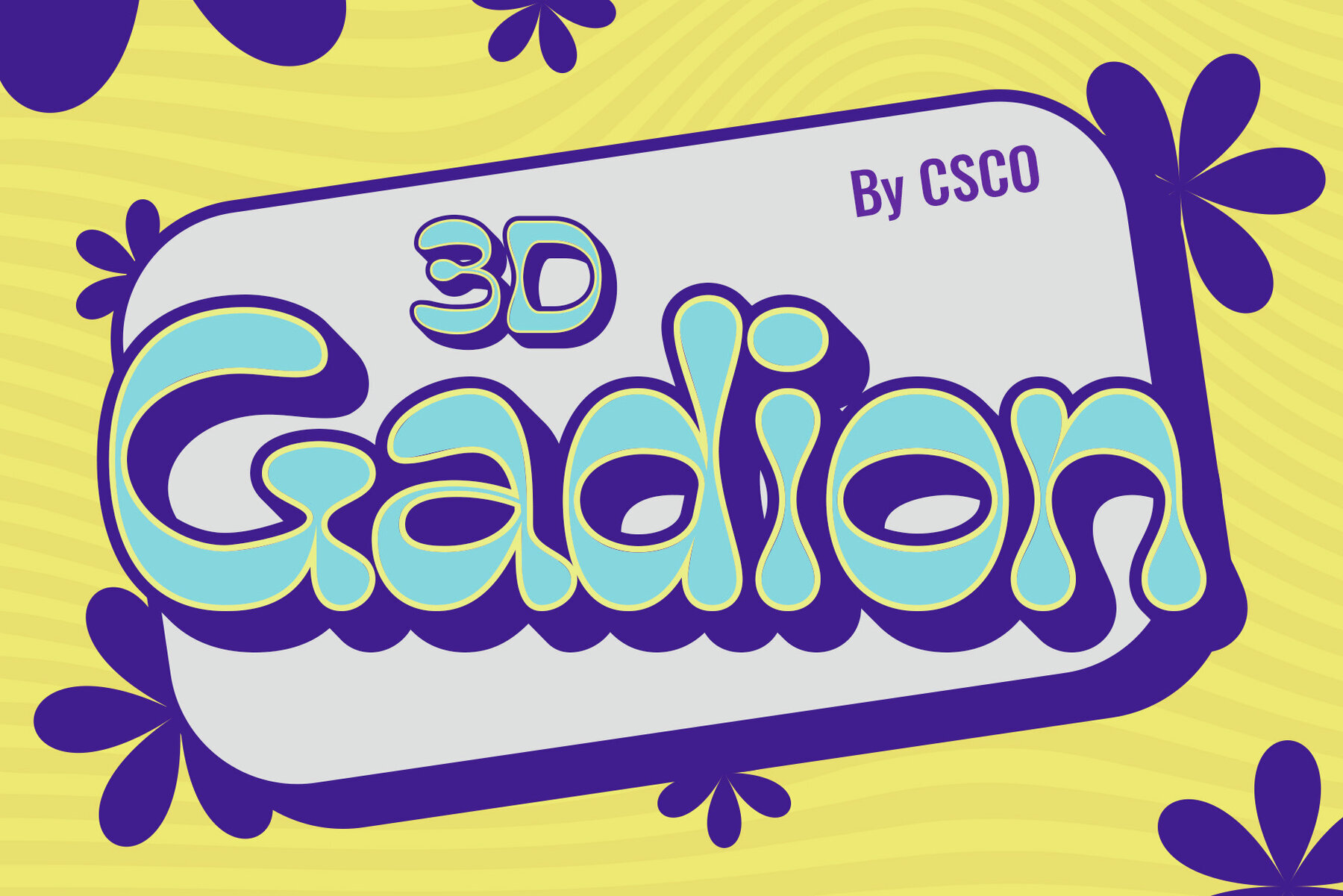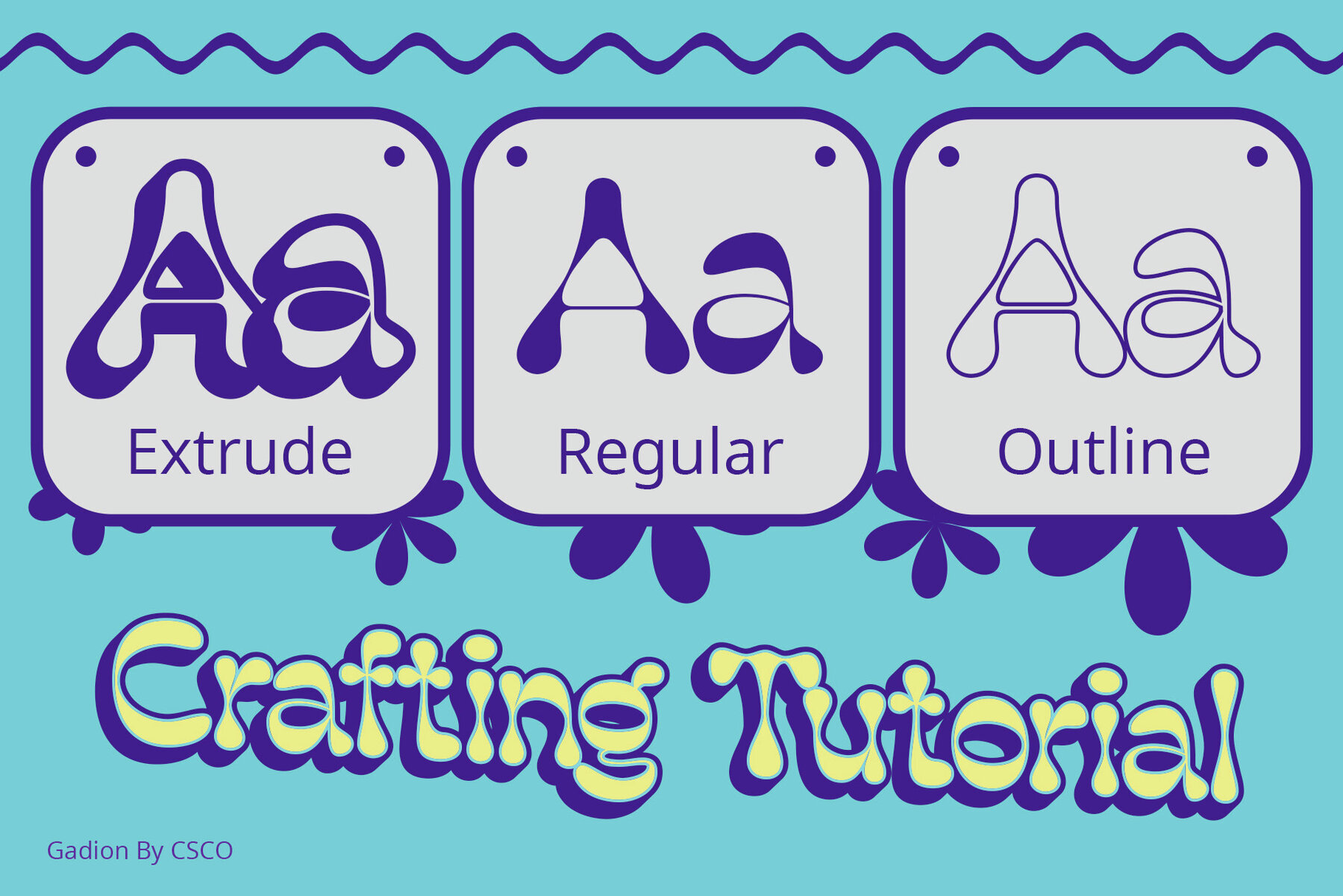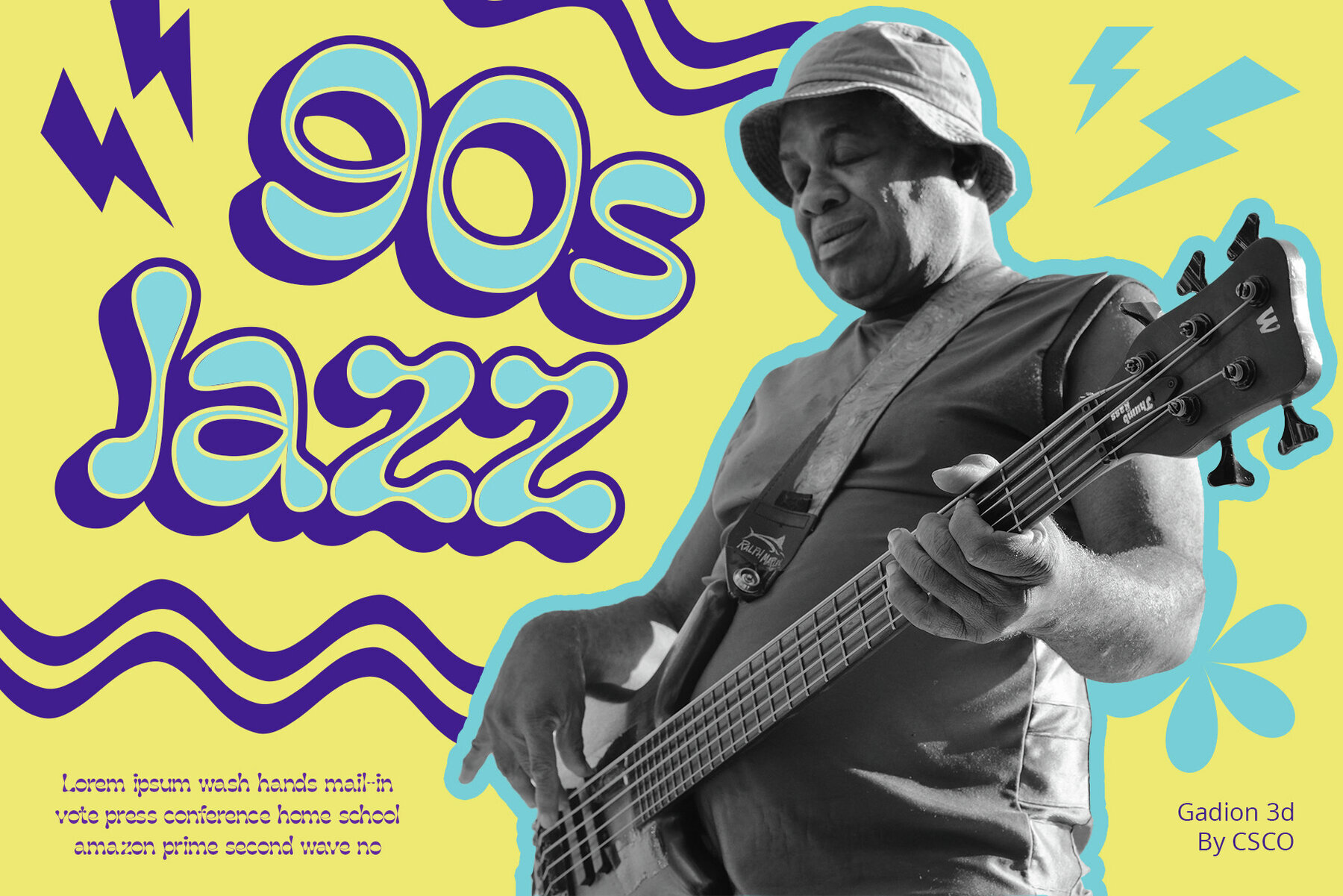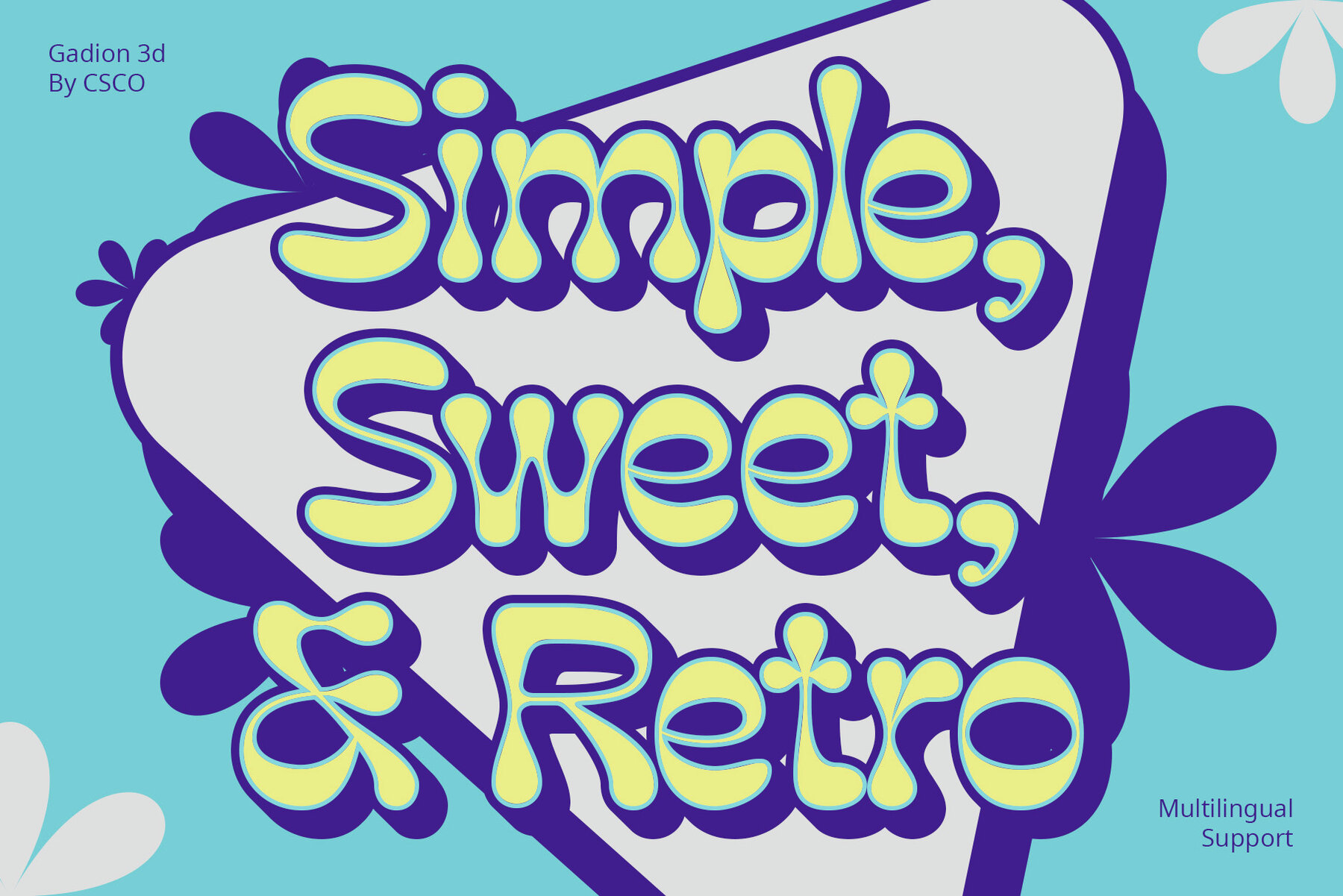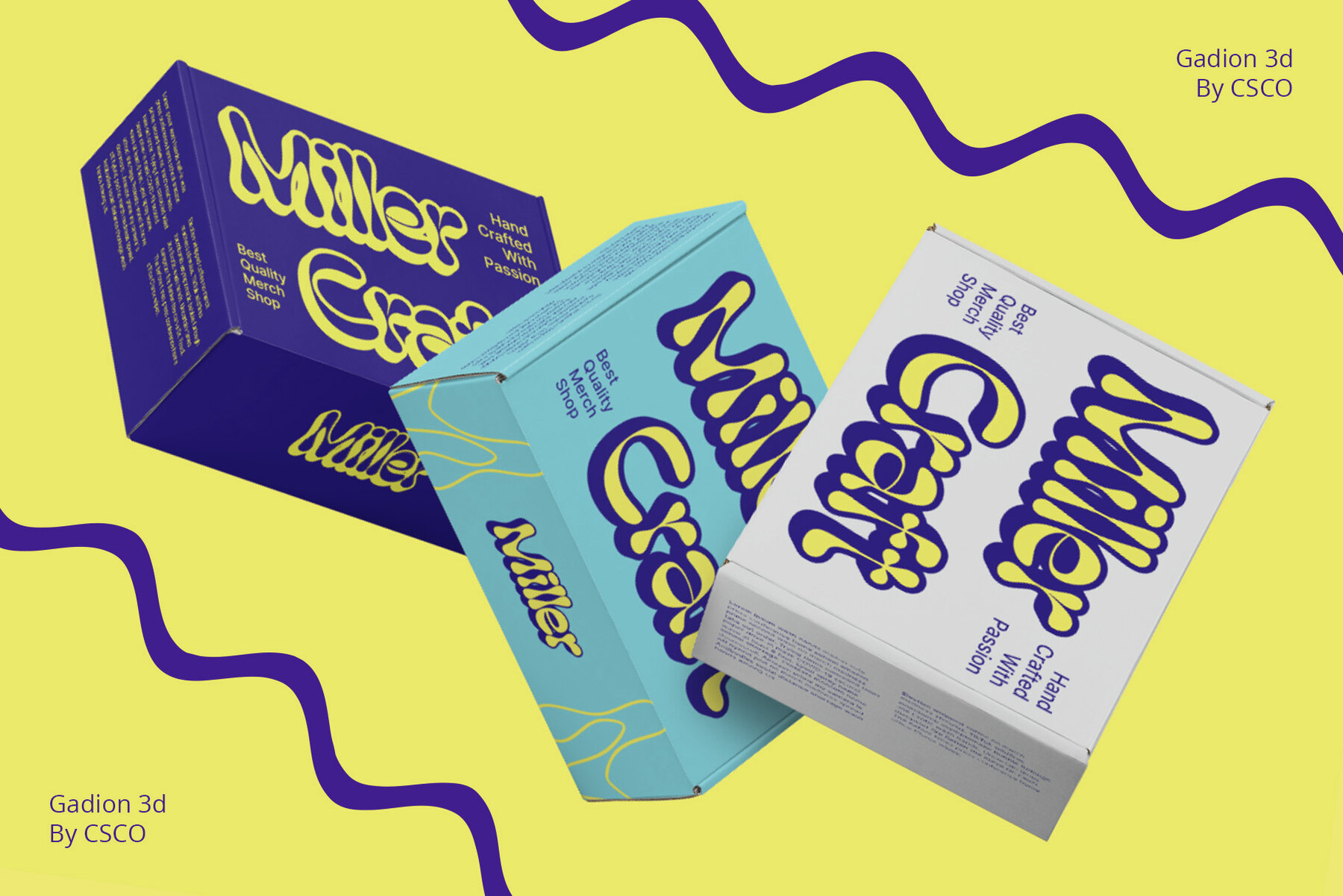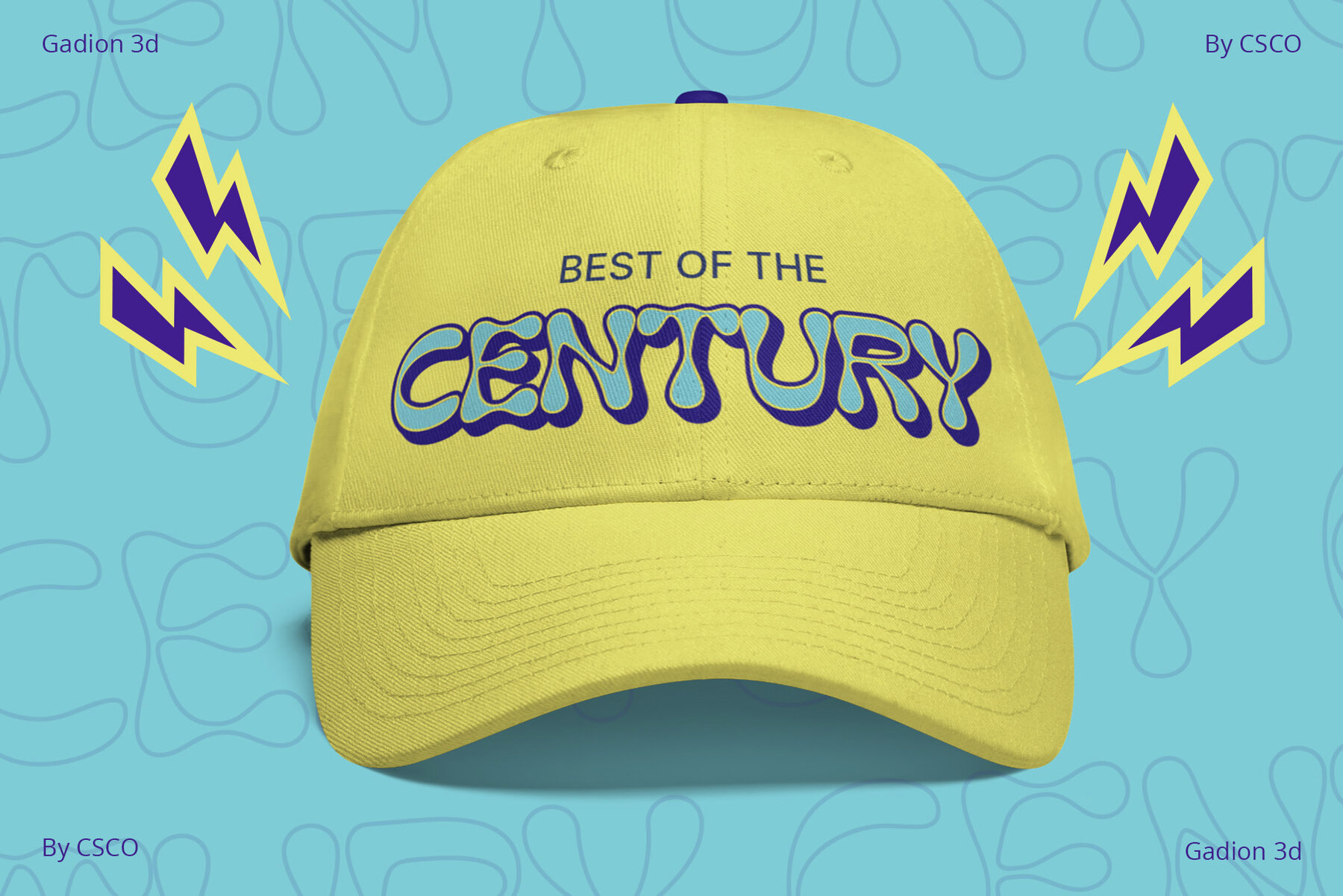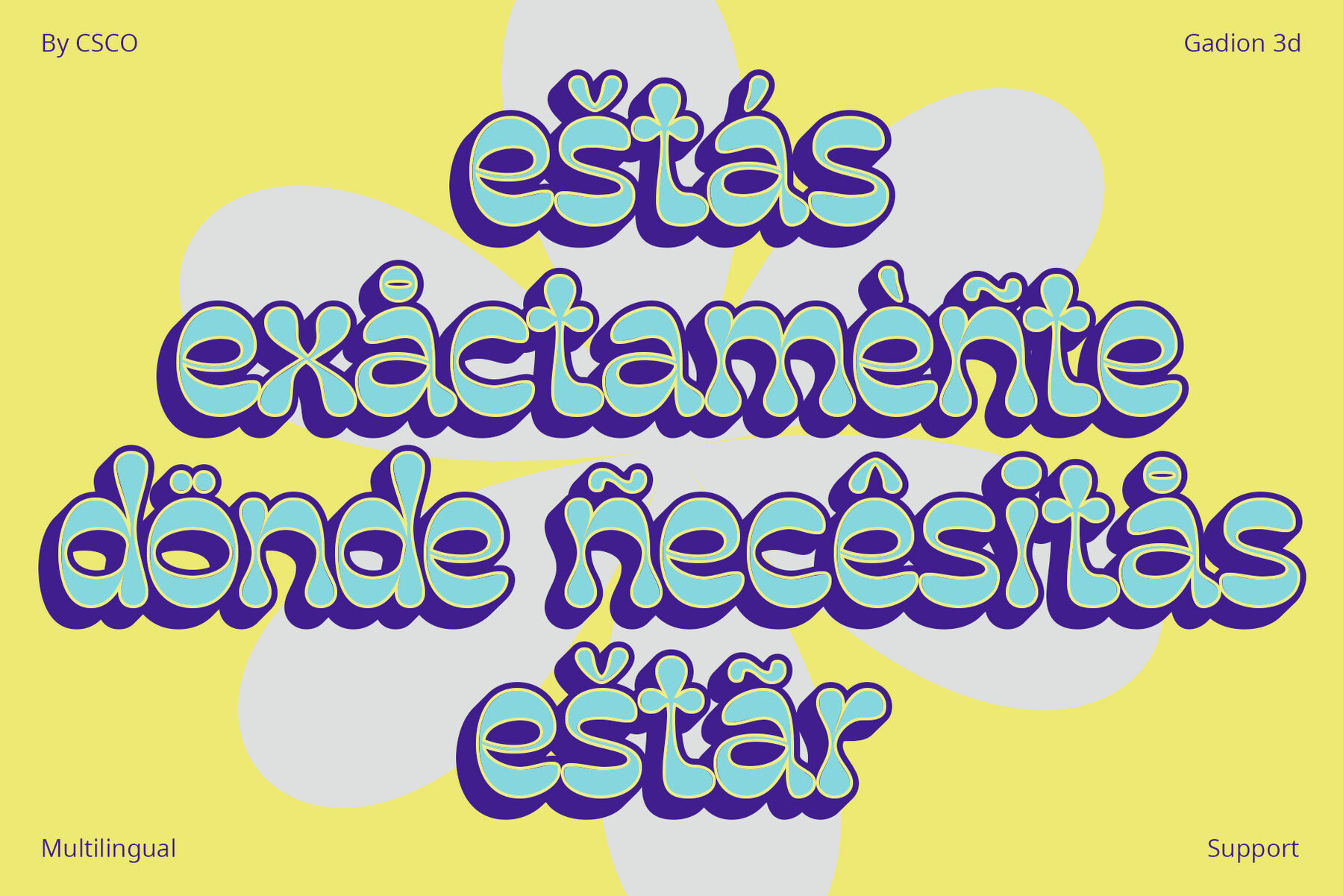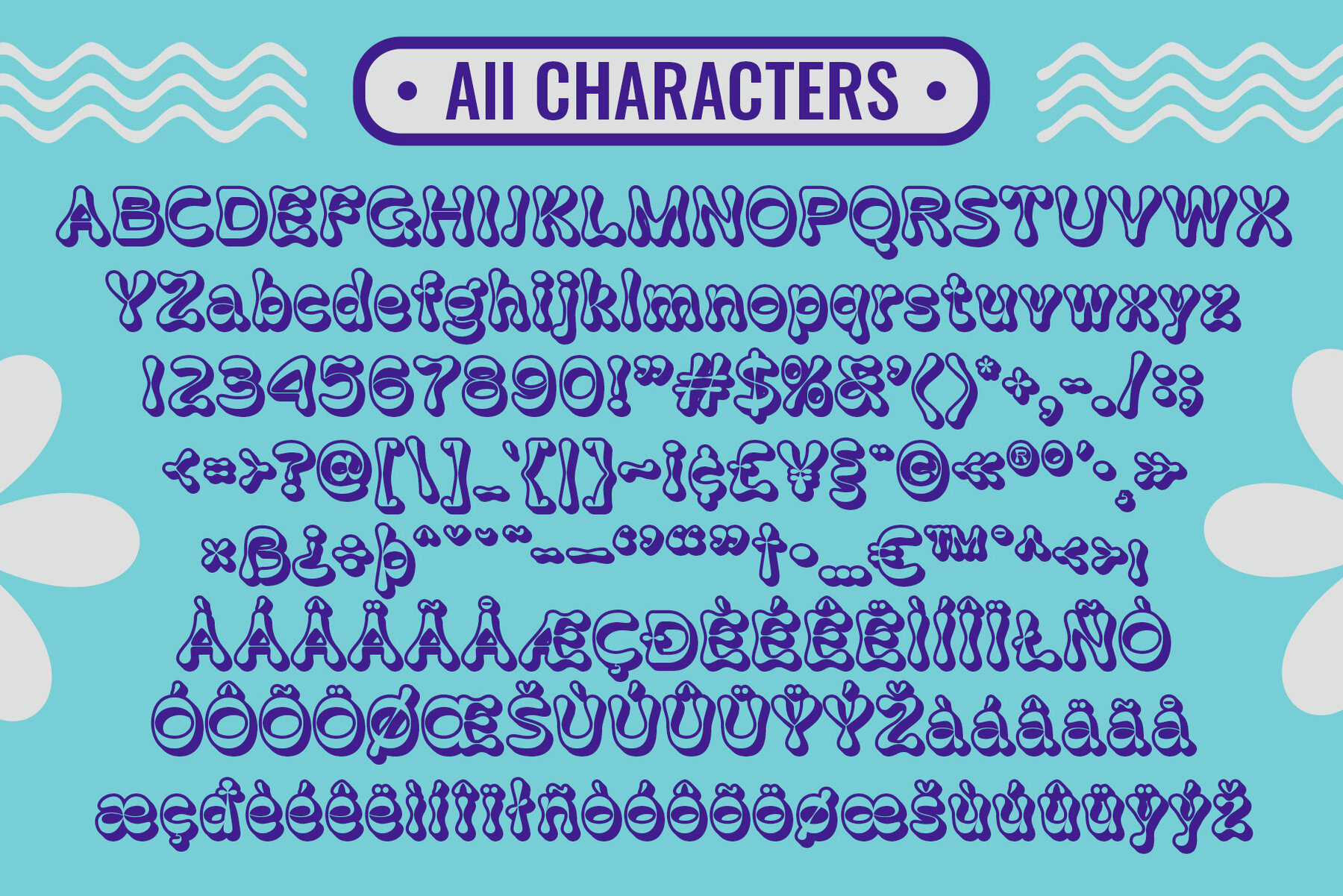
Gadion 3D Font
Gadion 3D is a playful display font inspired by the ethereal beauty of bubbles and the soft contours of clouds. Gadion 3D captures the whimsical charm of bubbles and clouds, offering a unique design that balances lightness and elegance. Crafted with precision, this font features a captivating 3D effect achieved through expert extrude and outline techniques. Each character in Gadion 3D is reminiscent of bubbles floating in the air, conveying lightness and joy. With a design inspired by clouds, the gentle curves and soft edges add sophistication to any project. Gadion 3D is more than just letters on a screen; it’s a journey where bubbles meet clouds, creating a playful and elegant font. Add a touch of enchantment to your designs with Gadion 3D. This typeface can be used without the need for specialized software. For any inquiries or assistance, please feel free to contact us. We appreciate your support and look forward to enhancing your creative projects! Best regards, Craft Supply Co.Gadion 3D Font: Where Bubbles Meet Clouds
Whimsical Inspiration
A Dimensional Delight
Bubble-licious Charm
Cloud-Like Elegance
Conclusion